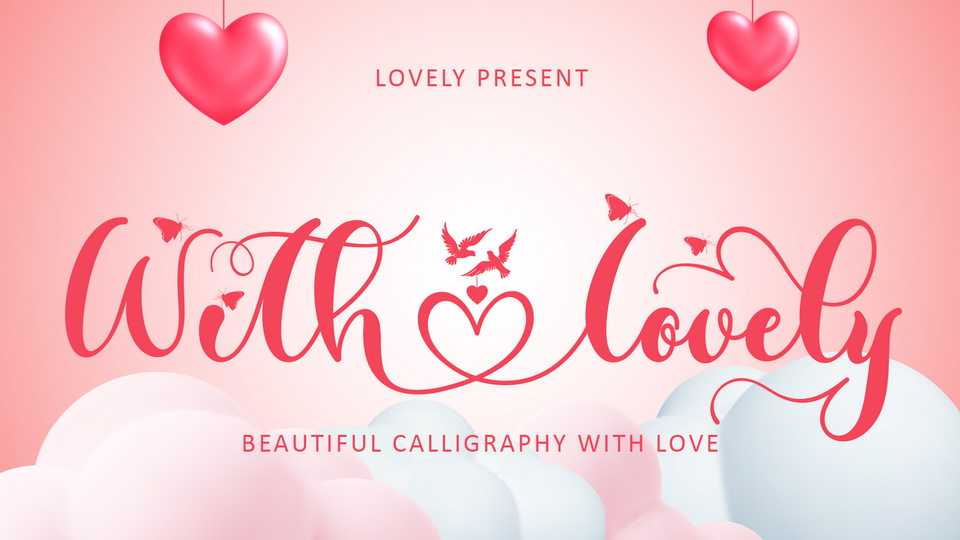
Download With Lovely font, a very pretty script calligraphy typeface. With Lovely font has beautiful decorations in the form of love, birds, and there are also butterflies.